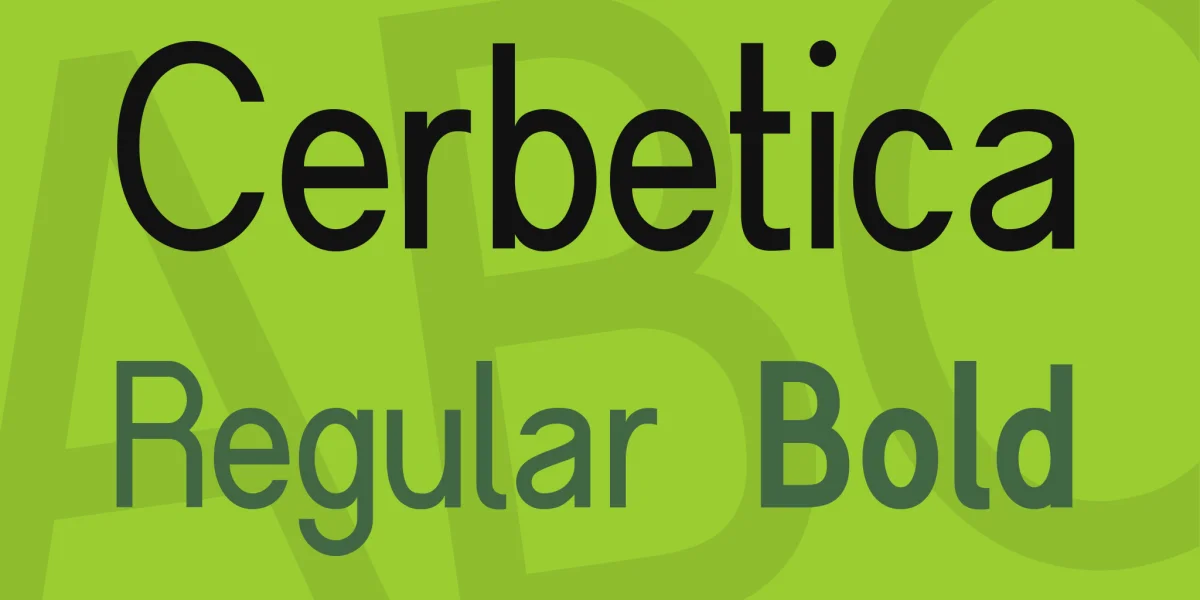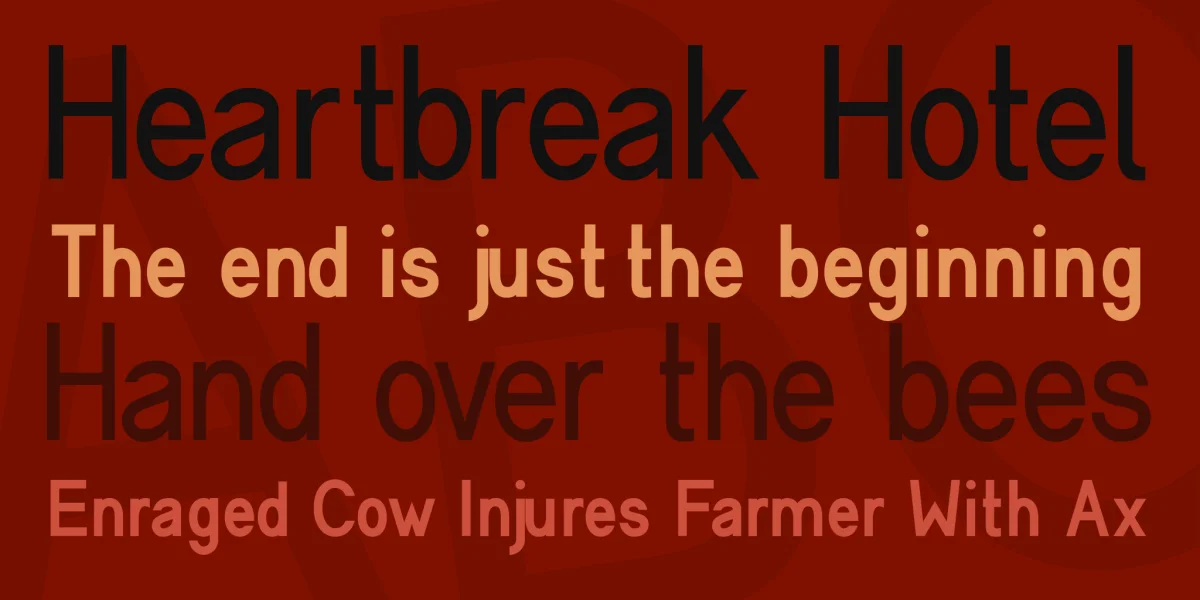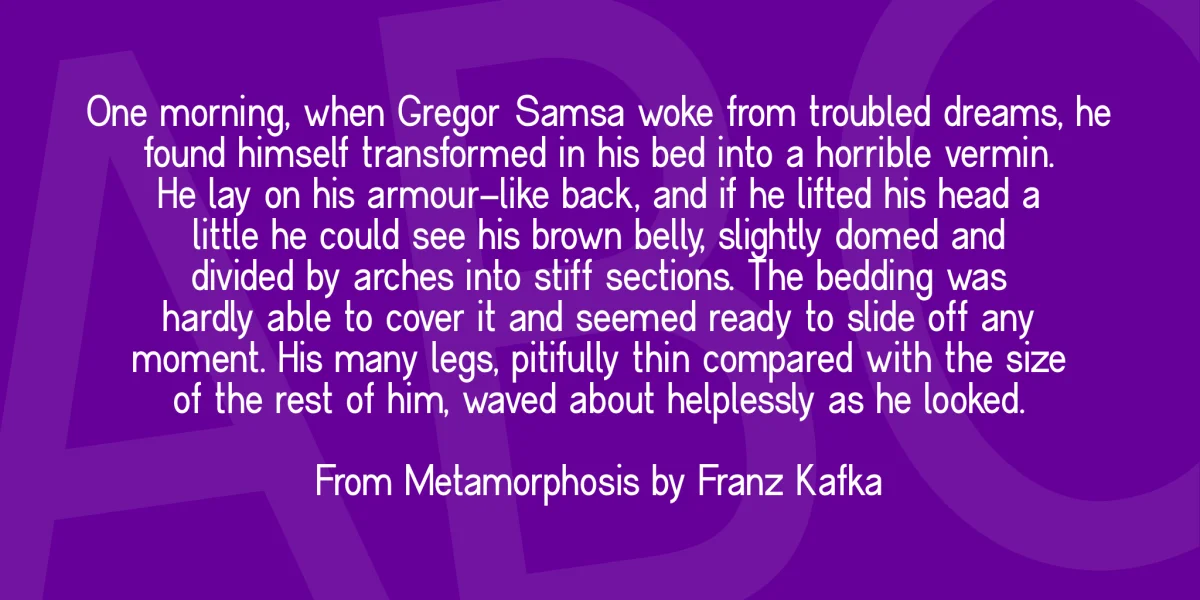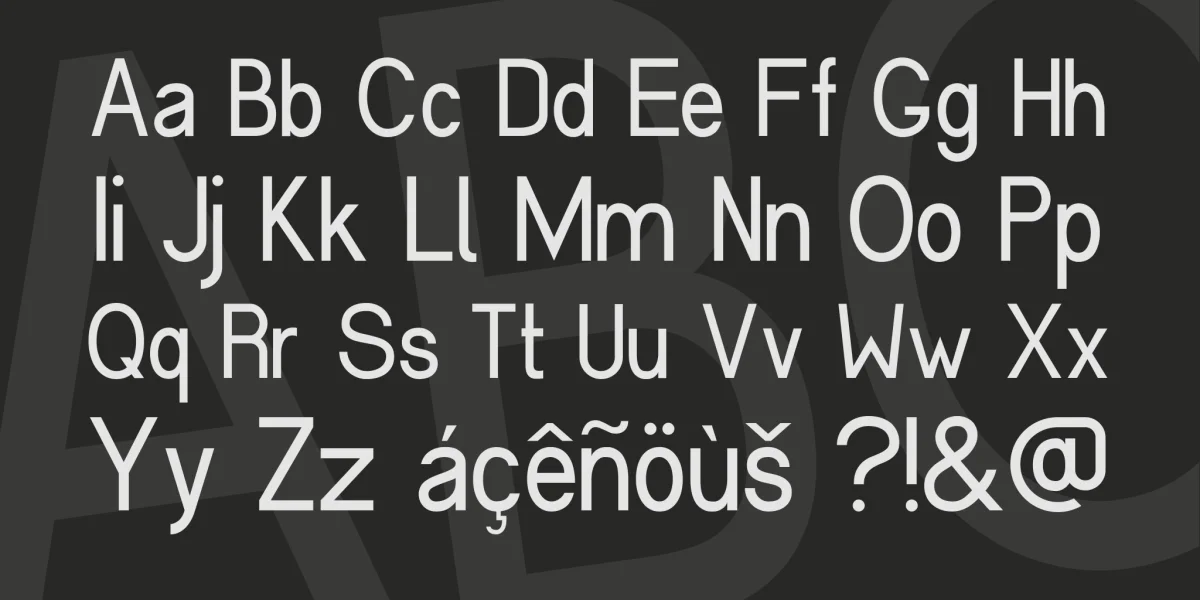
Cerbetica is a Geometric Sans serif Font designed after Helvetica, one of the most popular font ever. The design of Cerbetica is based on geometric strokes, but preserve an high level of readability as Display and Text Font. Cerbetica is an all-purpose font which can express efficiently any kind of message. Suitable for Web and Typography, its simple design make it readable at very small size.
Cerbetica Family:
Cerbetica Regular
Cerbetica Bold